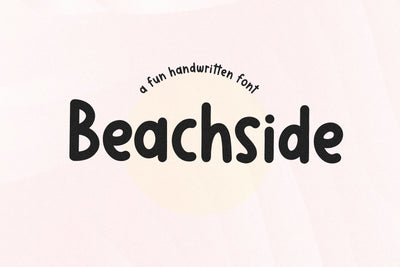
Beachside - A Fun Handwriting Font
Beachside is a fun handwritten font.
This font is perfect for craft projects, shirts, mugs, stickers, teachers, procreate, quotes, logos and more!